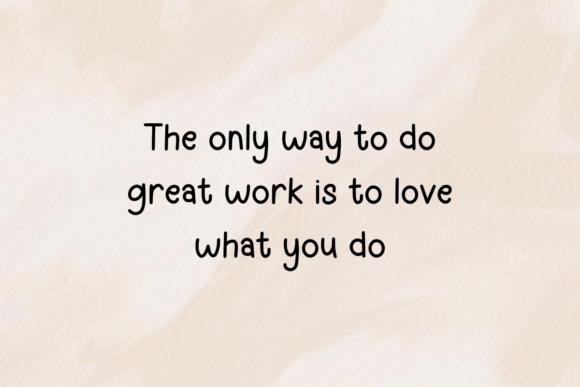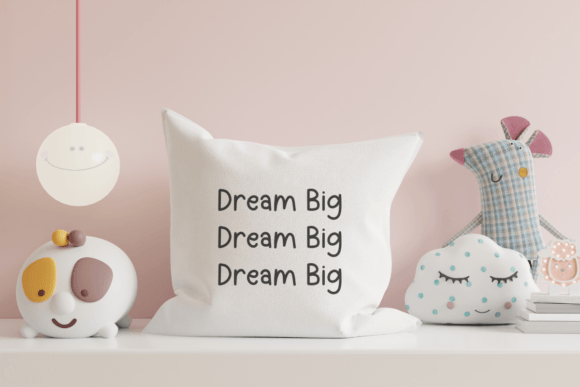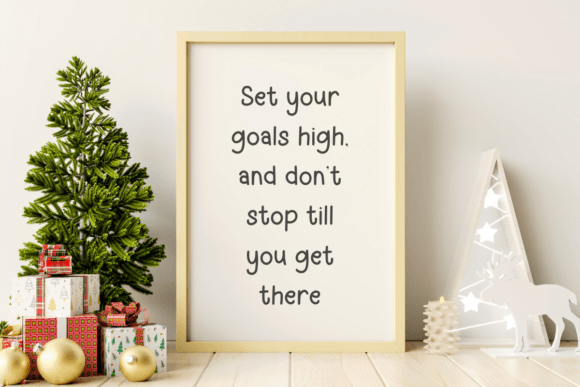
Introduction to Frame Style Font
Frame Style is a fun christmas sans serif font.
This font is perfect for kdp, journals, notes, teachers, teaching materials, quotes, scrapbooks, planners, memos, greeting cards, and many other creative ideas also perfect for Christmas, Halloween, 3D skinny tumbler, Buddhist, fall, breast cancer, Thanksgiving, mini calendar, football, ghost, procreate, tattoo, pumpkin, stickers, wedding, Halloween svg, dog, coffee, grinch, monogram, box, teacher, baby, disney, autumn, flowers, heart, highland cow seamless, christmas png, birthday, nurse.
Key Features of Frame Style Font